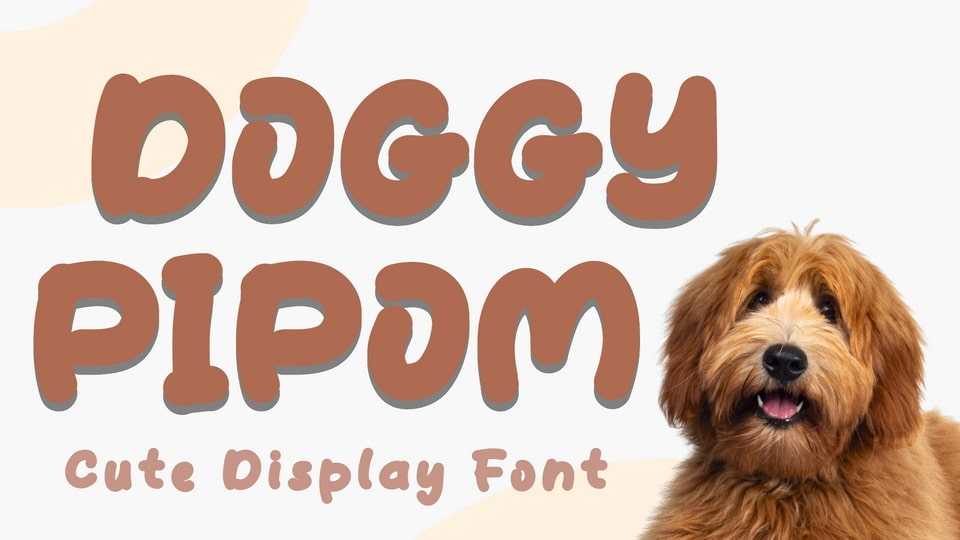
Download Doggy Pipom font, a cute and adorable display typeface. It’s perfect for comics, pets, funny movies, animations, posters, banners, posters, branding, stickers, Christmas